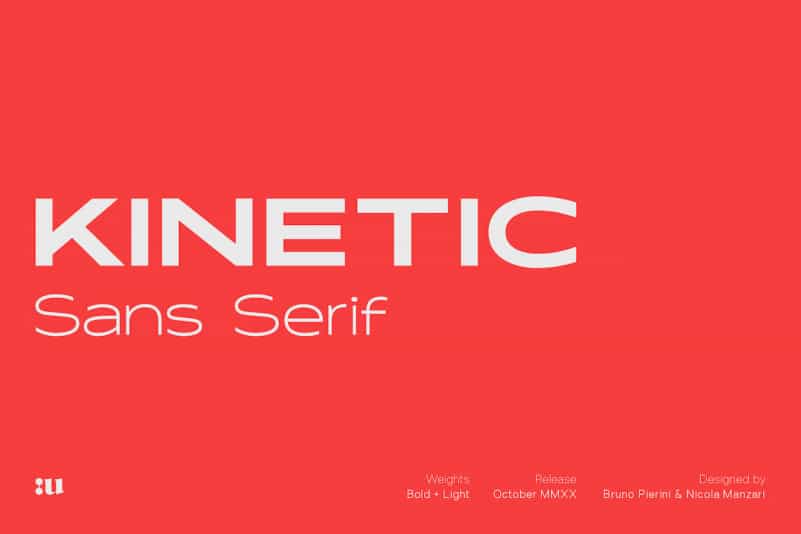
Introducing “Kinetic Freebie Sans Serif Font” – a versatile wide typeface, inspired by motion and globalization. Suited for a maximum visual impact. Outlined version included.
Kinetic Freebie Sans Serif Font is a type system that embraces the minimalist look associated with neo-grotesques, blending bold lines with high refined curves and iconic geometric shifts.
Ideal for headlines, large-format prints, brand identities, social media, advertising, editorial design, posters.